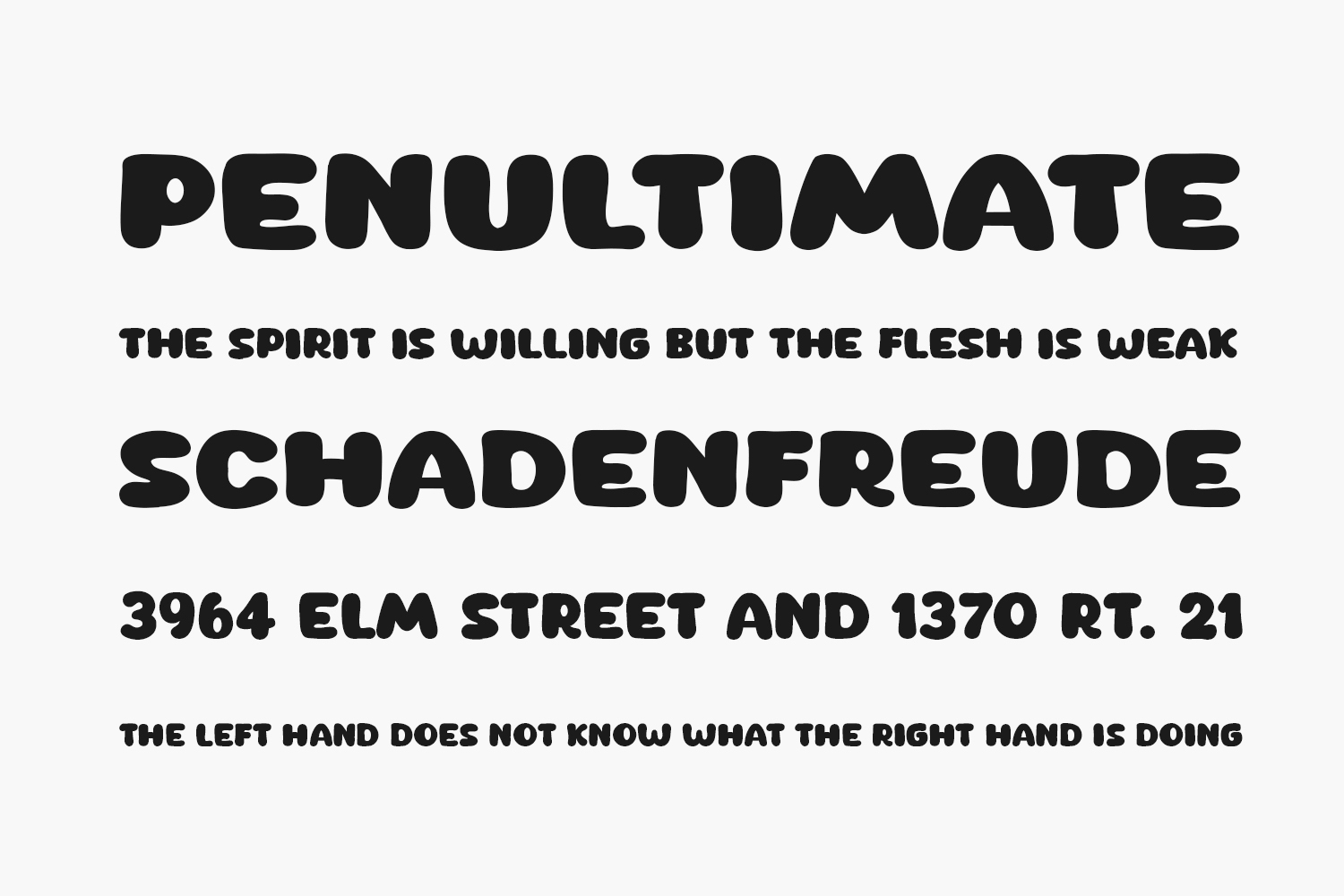
Introducing New Cheese Free Font, a contemporary and charming handwritten display typeface ideal for posters, logos, magazines, book covers, banners, and beyond! Acquire this exceptional font and employ it to craft delightful designs. Its versatility ensures compatibility with a wide array of projects, making it a must-have for enhancing your creative concepts and giving them that extra flair. New Cheese Free Font is free for personal or commercial use.